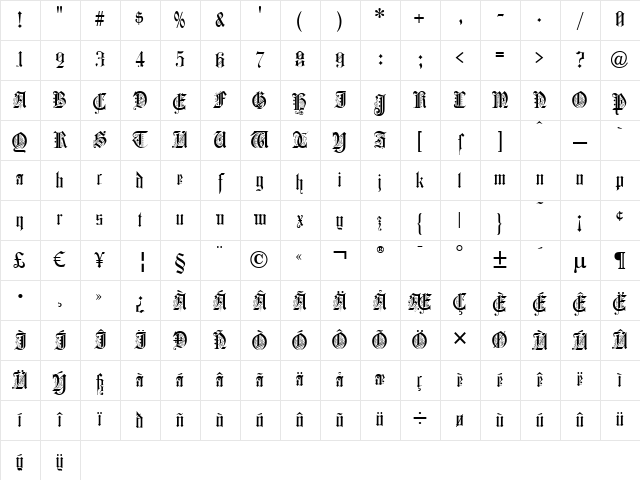
Complete Colchester Black glyph index. Displaying only characters natively supported by Colchester Black font.
Colchester is a composed and adaptable typeface that performs quietly and consistently across a wide range of design contexts.